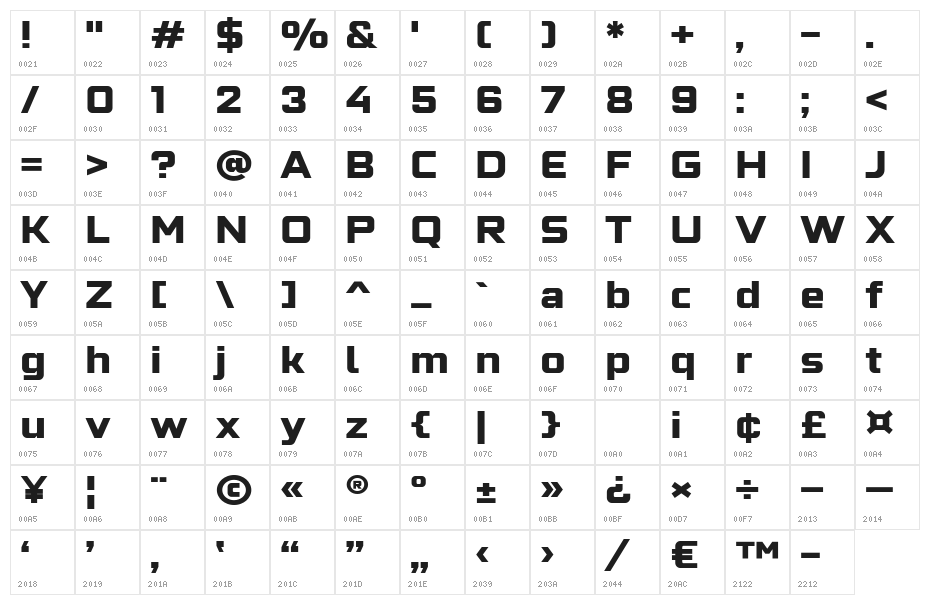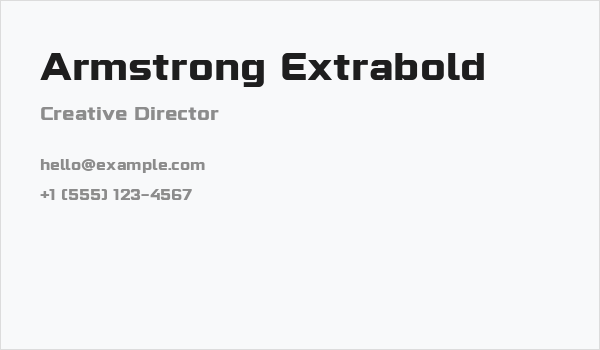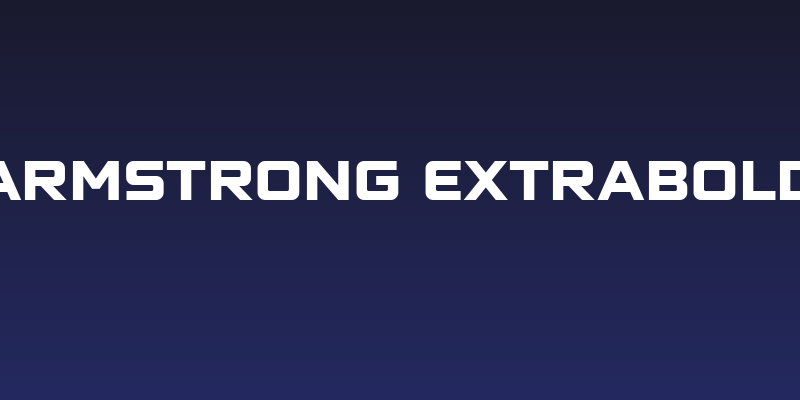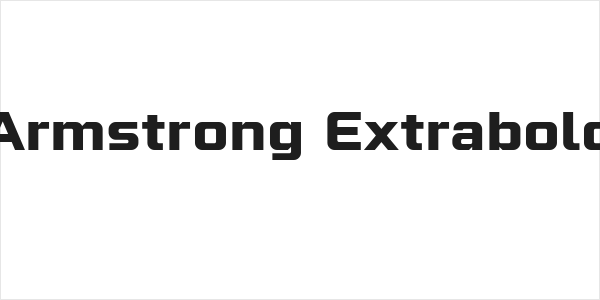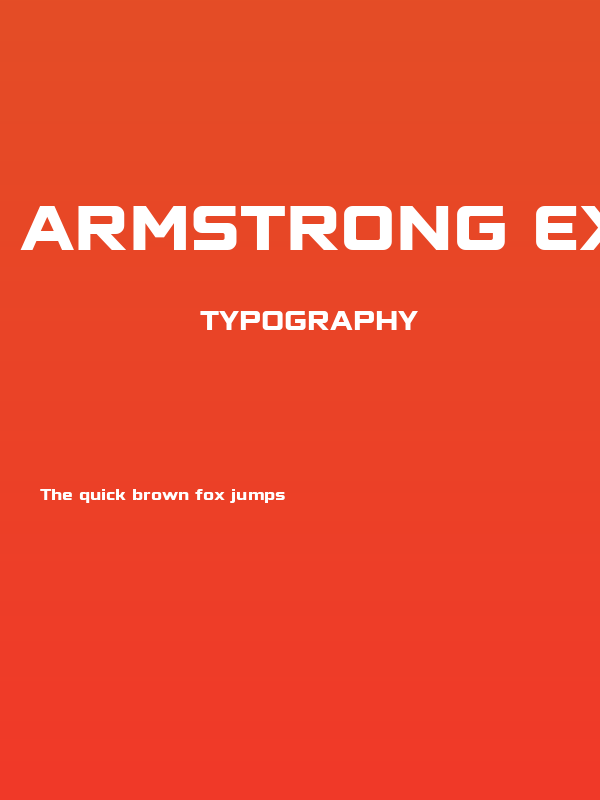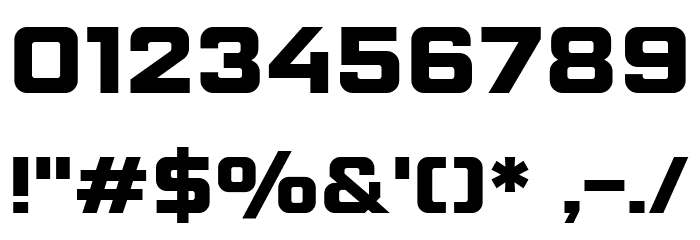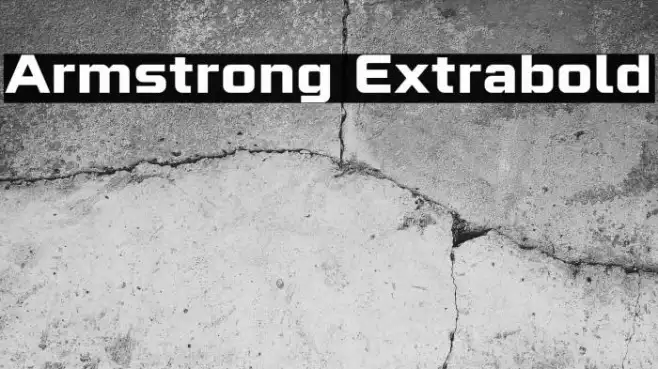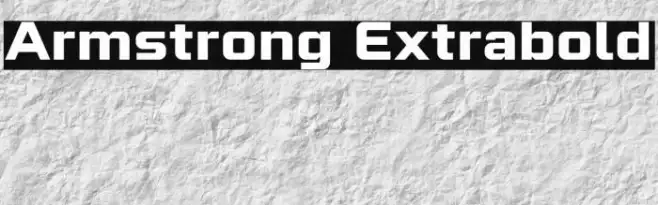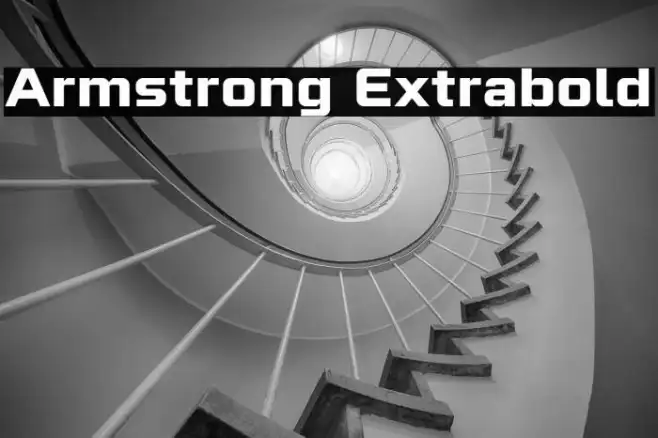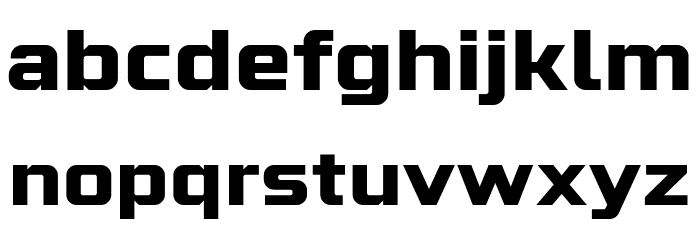
Armstrong Extrabold Font
Armstrong Extrabold Description
This font features a bold and assertive style, characterized by thick, uniform strokes that convey strength and modernity. The uppercase letters are particularly striking, with a geometric precision that gives them a commanding presence. The lowercase letters maintain this boldness while offering a slightly softer edge, making them versatile for various design needs. Numbers and special characters are equally robust, ensuring consistency across all text elements. The overall design is clean and uncluttered, making it suitable for impactful headlines and branding projects.
| Proposed Projects | Ideal for branding, headlines, posters, and any design requiring a strong, modern typeface. |